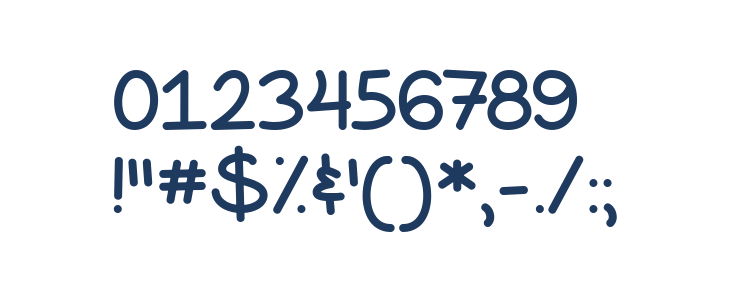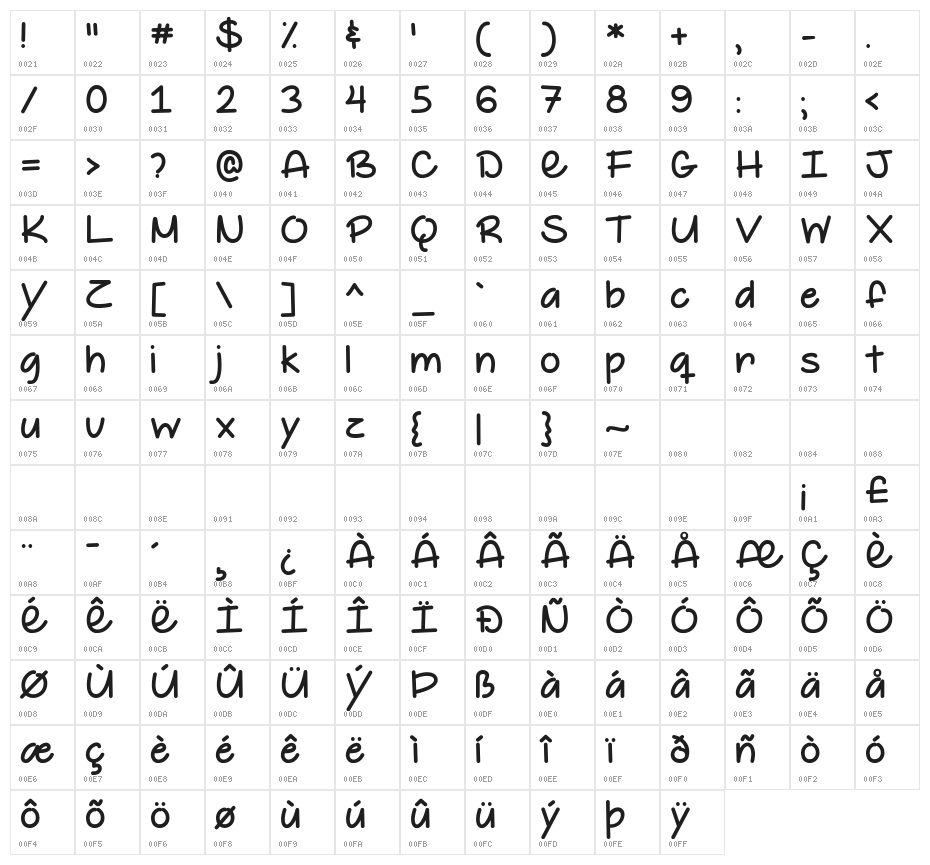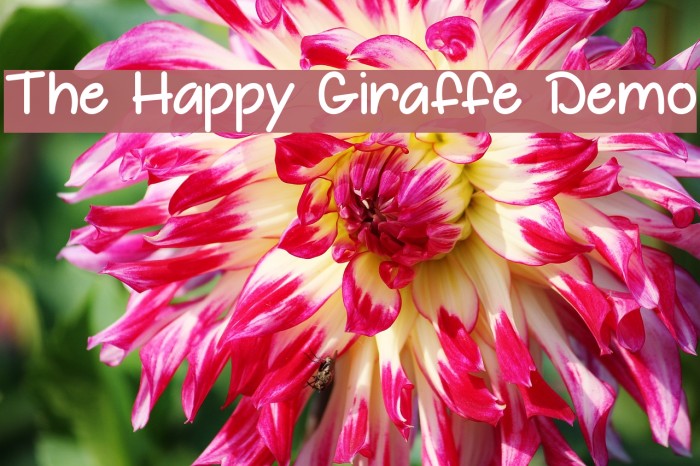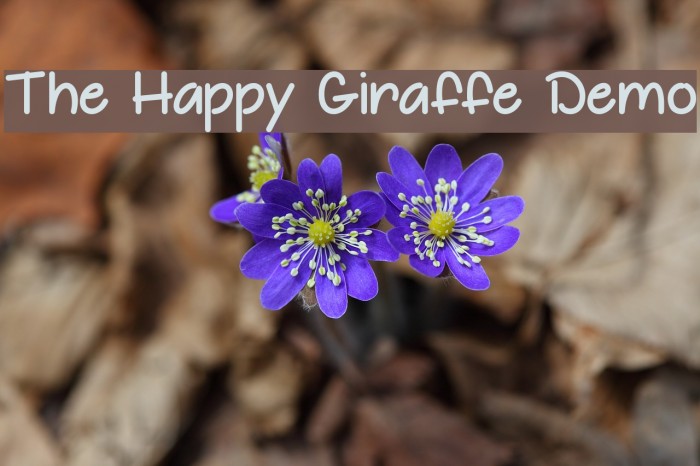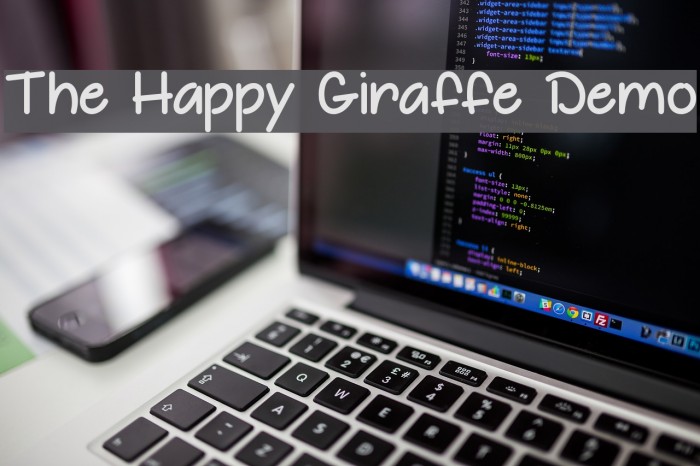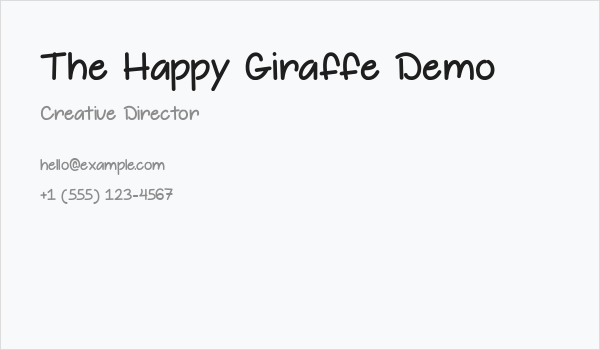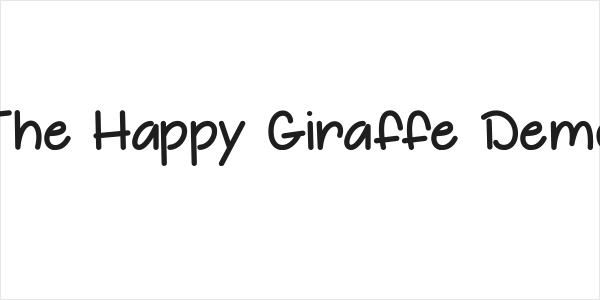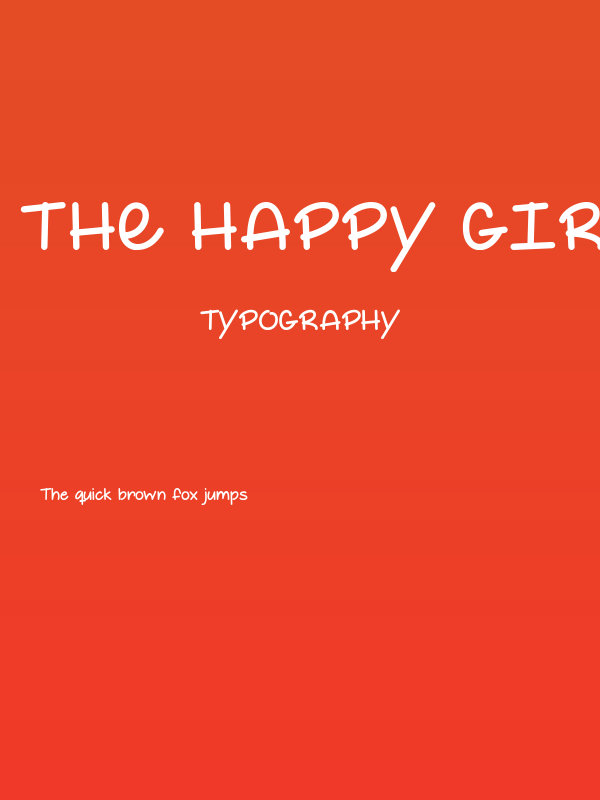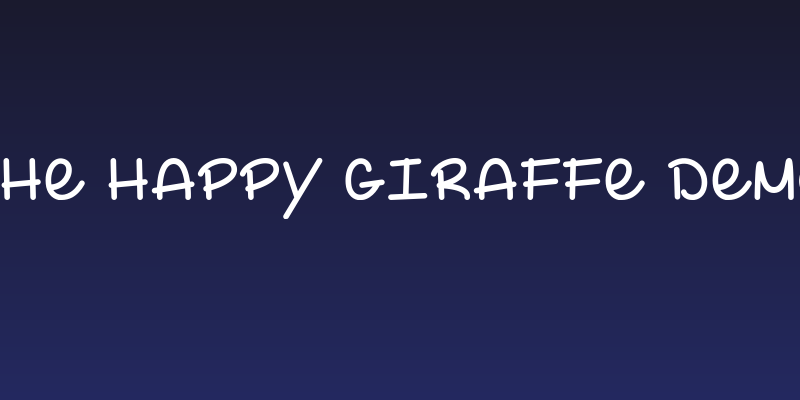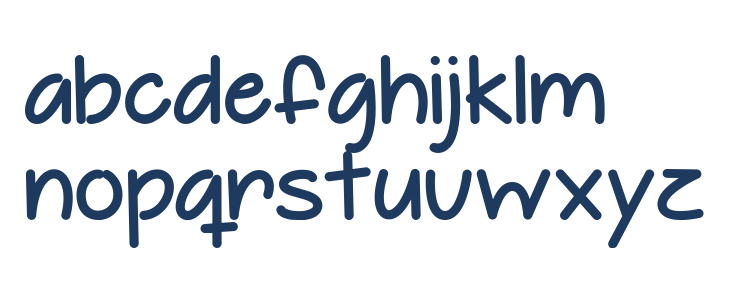
The Happy Giraffe Demo Font
The Happy Giraffe Demo Description
This font features a playful and whimsical design, characterized by its rounded and smooth letterforms. The strokes are consistent in width, giving it a uniform appearance. The letters have a hand-drawn quality, with slight variations that add to its charm. The uppercase and lowercase letters maintain a friendly and approachable style, making it suitable for informal and fun projects. The numbers and special characters are designed to match the overall playful aesthetic, ensuring consistency across all glyphs.
Overall StylePlayful
Use CaseHeadlines, Logos, Informal Text
Proposed ProjectsIdeal for children's books, playful branding, greeting cards, and casual invitations.